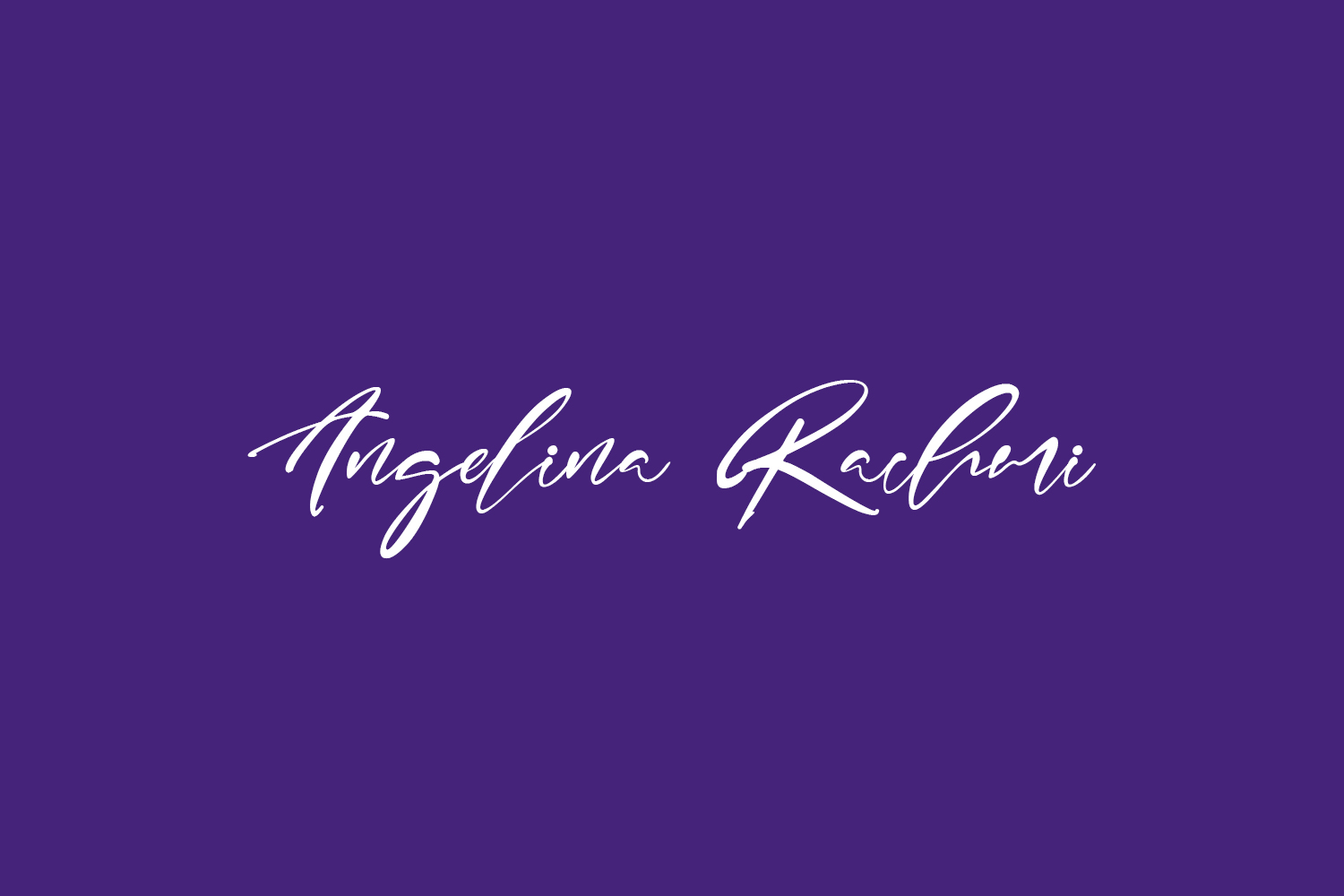
Introducing Angelina Rachmi Free Font, a truly exquisite handwritten font that will capture your heart. With its blend of timeless calligraphic influences and modern flair, it is sure to become your ultimate favorite. Immerse yourself in its elegance and elevate your projects to new heights of excellence. Angelina Rachmi Free Font is free for personal use only. Please purchase the full version for commercial use.